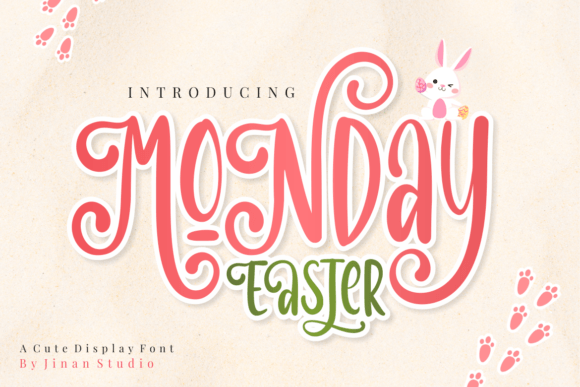
Looking for the perfect font to make your Easter and Valentine's Day projects even more special? Look no further than Easter Monday Font! Created by jinanstd, this cute handwritten display font is perfect for a wide range of applications, including greeting cards, headlines, and more.
One of the standout features of Easter Monday Font is its suitability for small text print. In fact, it's the best font for small text print out there! This makes it ideal for projects where space is at a premium, such as invitations or event programs.
But Easter Monday Font isn't just practical – it's also incredibly charming. Its handwritten style gives it a personal touch that will make your creations stand out. And with its PUA encoding, accessing all of the amazing glyphs and ligatures is a breeze.